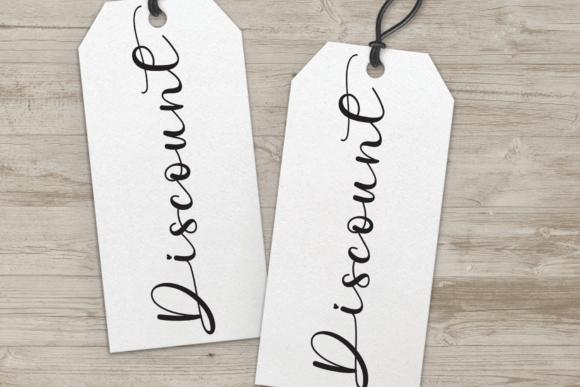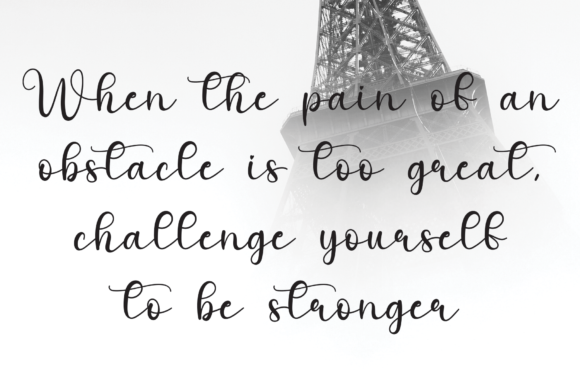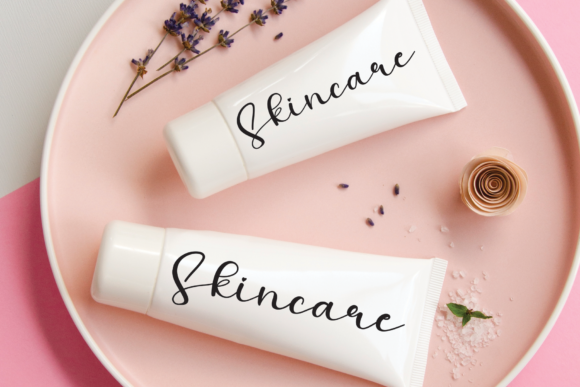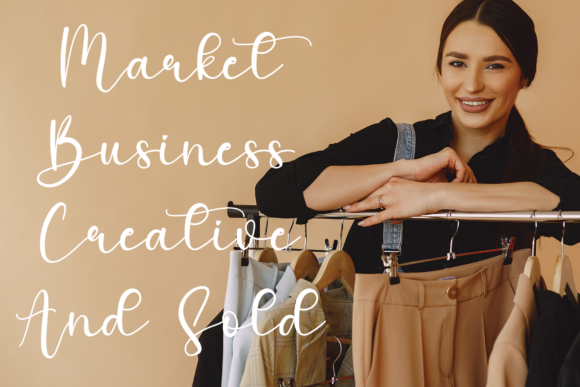
About Simple Font
Simple is a well-balanced and sweet calligraphy typeface with characters that dance along the baseline. It will add a luxury spark to any design project that you wish to create!